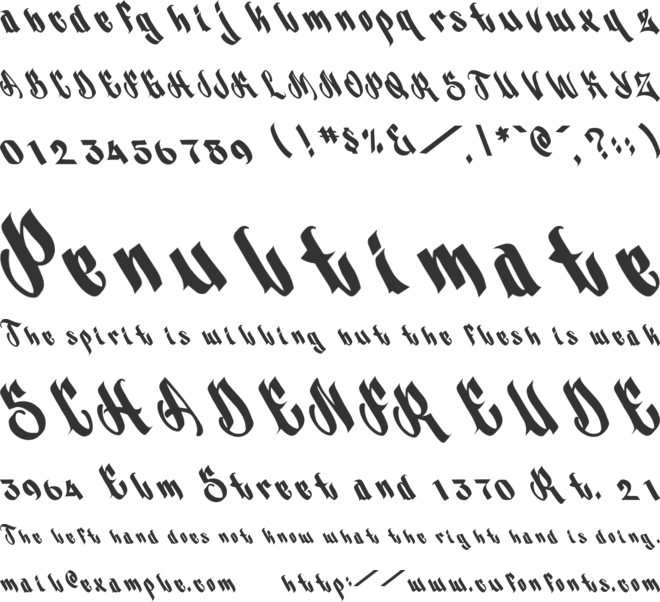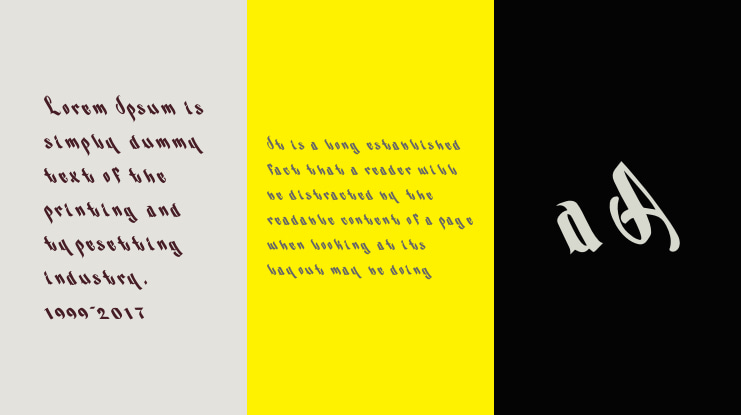
Grapler Font
Grapler is simple grafitti font. Striking fusion of traditional blackletter calligraphy and raw street graffiti aesthetics. Designed with an aggressive, high-energy attitude, it perfectly captures the rebellious spirit of underground youth culture, skate scenes, and modern streetwear.